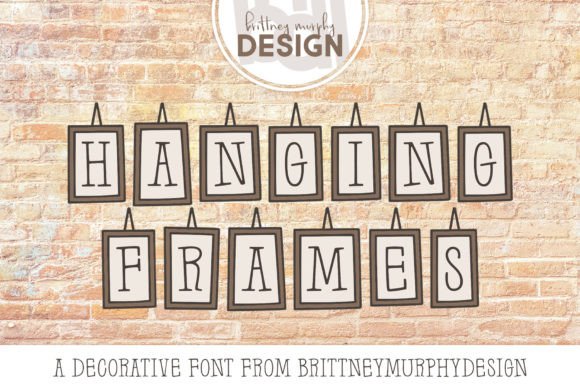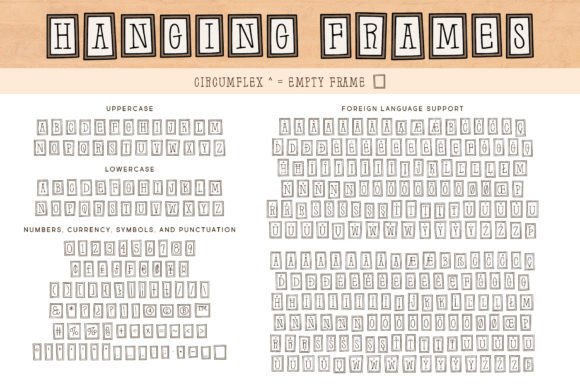
Hanging Frames Font
About the Hanging Frames Font
We are excited to introduce Hanging Frames Font, a must-have typeface for any serious designer. Hanging Frames is a decorative font that features letters in frames, creating a unique and eye-catching display. Its ornate and intricate details give it a sophisticated and elegant look that is perfect for wedding invitations, posters, and branding.
Hanging Frames excels as a display font for headlines, logos, and short, impactful text on packaging or posters. Its intricate detail makes it unsuitable for body copy or UI elements where readability is paramount; the ornate frames would hinder quick comprehension in smaller sizes or extended use.
The font projects a sophisticated and elegant personality, ideal for brands aiming for a premium or luxurious feel. It works particularly well in the fashion, beauty, or wedding industries. To balance its ornate style, pair it with a clean sans-serif like Helvetica Neue for contrast, or a classic serif such as Garamond for a more traditional feel.
A script font like Allura could also complement its decorative nature, adding a touch of handwritten charm to invitations or branding materials. Avoid pairing it with other highly decorative fonts, which would result in visual clutter.
Hanging Frames Font Usage Examples
Hanging Frames Font Example